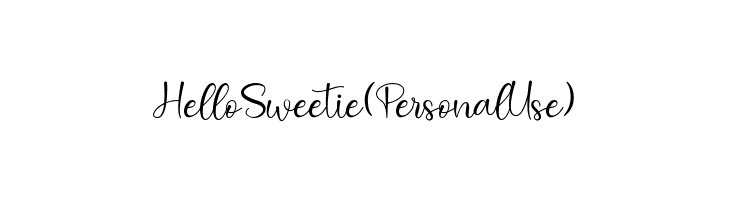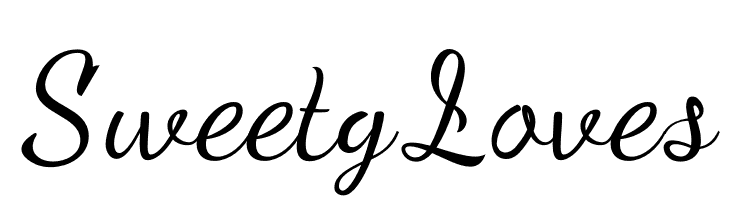
A playful, rounded font with whimsical paw print accents.
A playful, hand-drawn font with a whimsical and informal style.
A playful, floral-decorated font with whimsical curves and elegant numbers.
A playful, cartoon-like font with characters featuring eyes and ears, perfect for children's designs.
A playful, hand-drawn font with tall, narrow letterforms and a whimsical style.
A playful, hand-drawn font with a whimsical and quirky style.
A whimsical, hand-drawn decorative font with intricate patterns.
A playful, casual handwritten font with smooth, flowing lines and slightly irregular shapes.
A playful, hand-drawn font with tall, narrow letters and whimsical doodles.
A decorative font with ribbon-like embellishments on each character, perfect for festive designs.
A playful, handwritten font with a whimsical and friendly style.
A playful, hand-drawn font with a whimsical and friendly style.
A playful, handwritten font with curly, looping strokes and a whimsical style.
A playful, hand-drawn font with tall, narrow characters and whimsical doodles.
A playful, handwritten font with whimsical strokes and decorative symbols.
A playful, handwritten font with whimsical elements and a youthful charm.
A playful, hand-drawn font with a whimsical and casual style.
A playful, hand-drawn font with a whimsical and informal style.
A playful, decorative font inspired by vintage children's alphabet blocks.
A playful, heart-embellished font with a hand-drawn, whimsical style.
A playful, handwritten font with bold, rounded characters and charming heart accents.